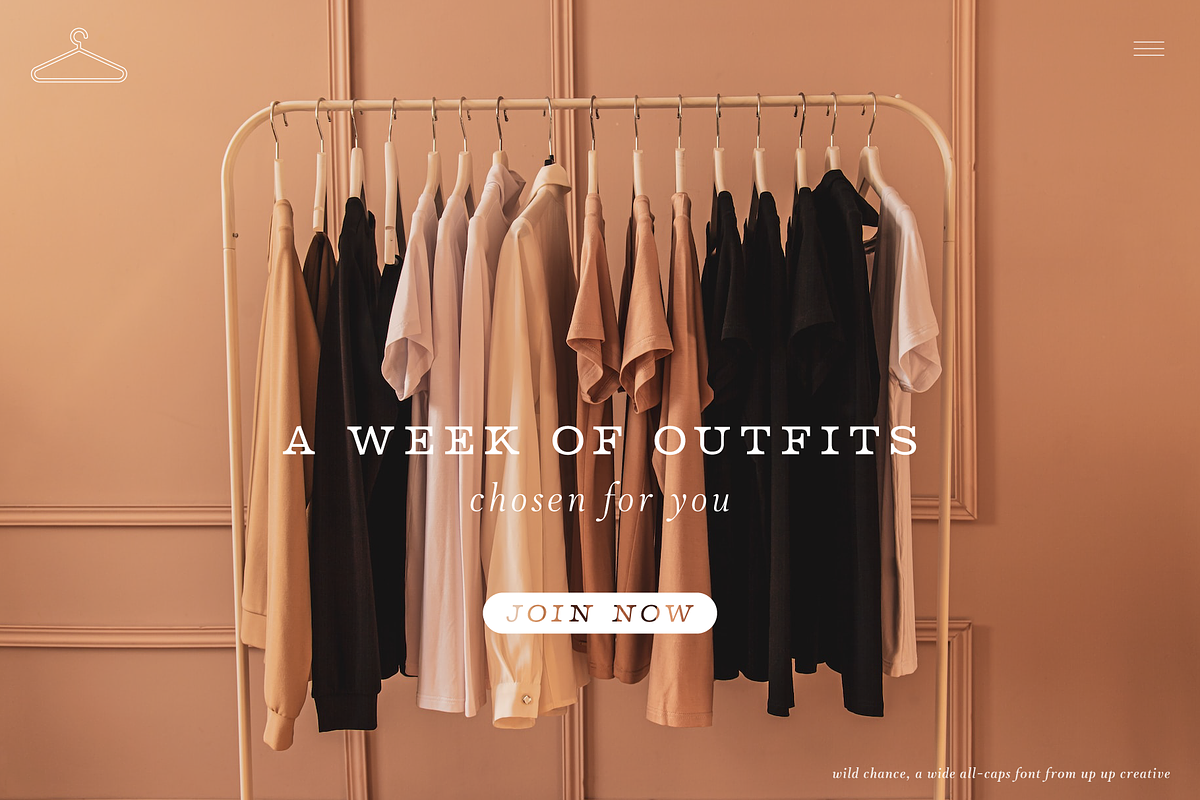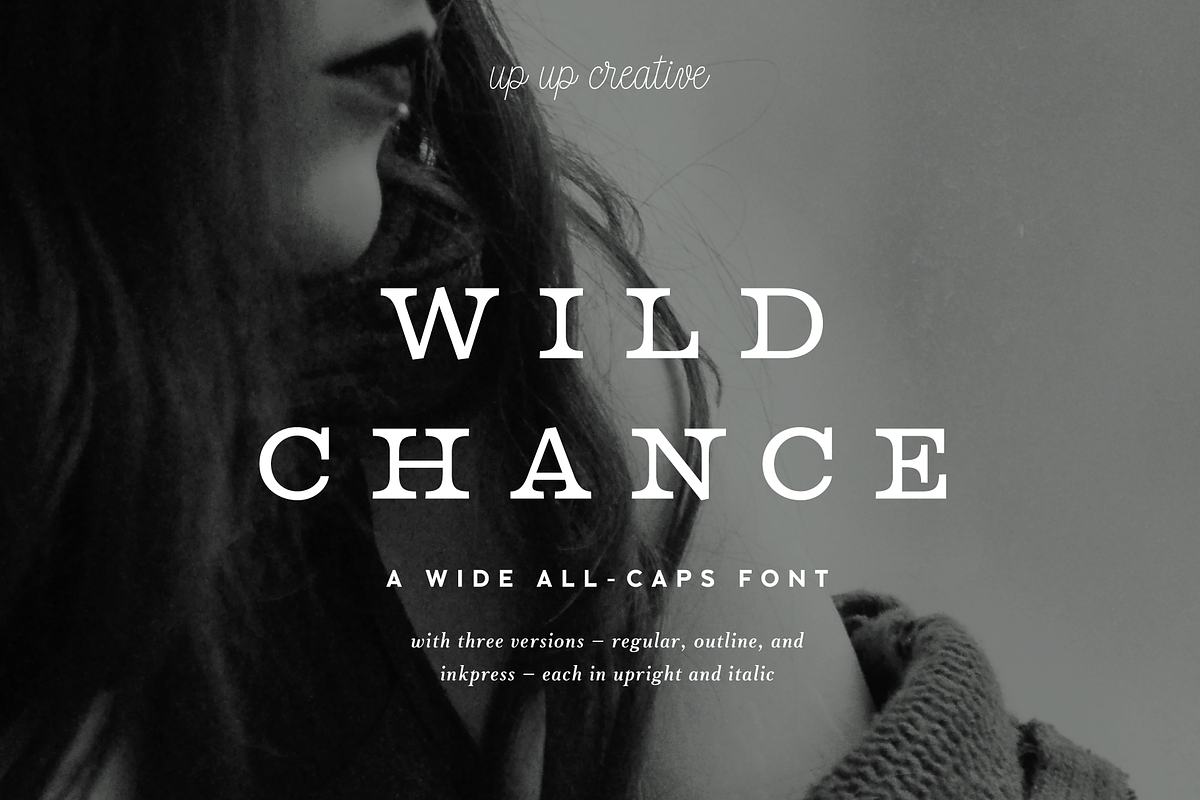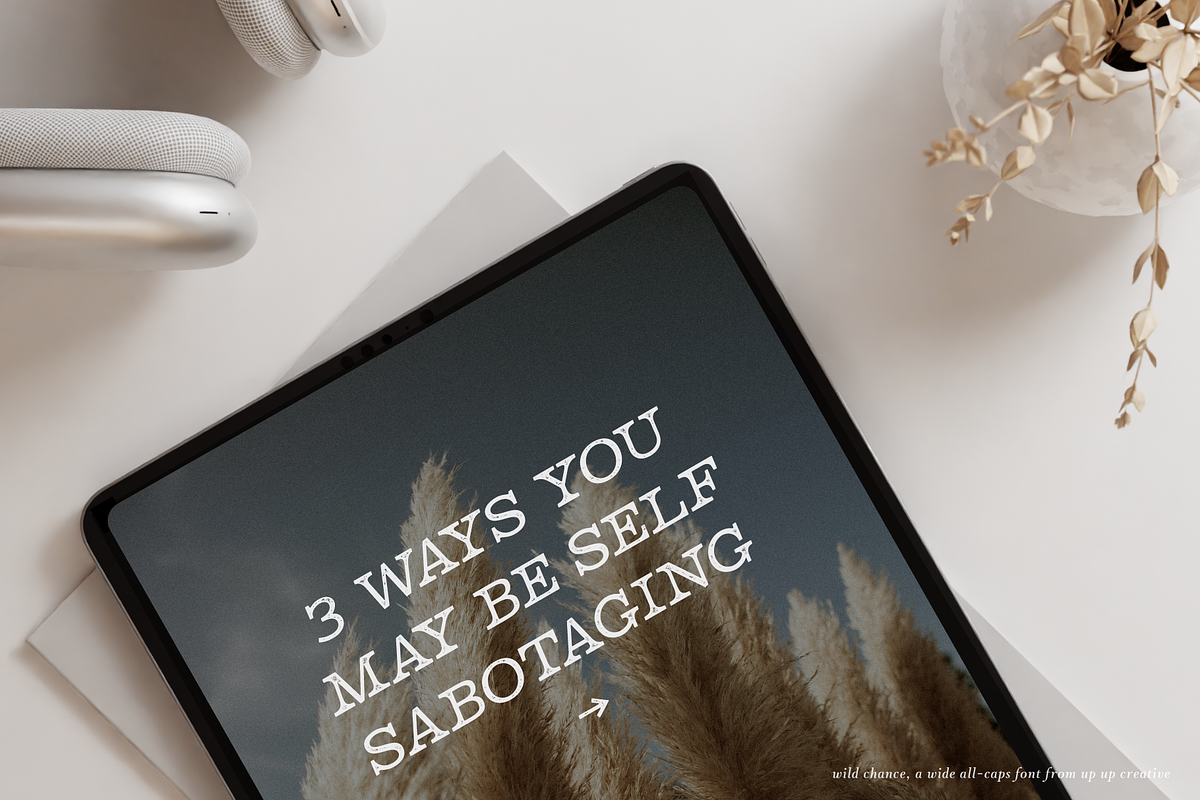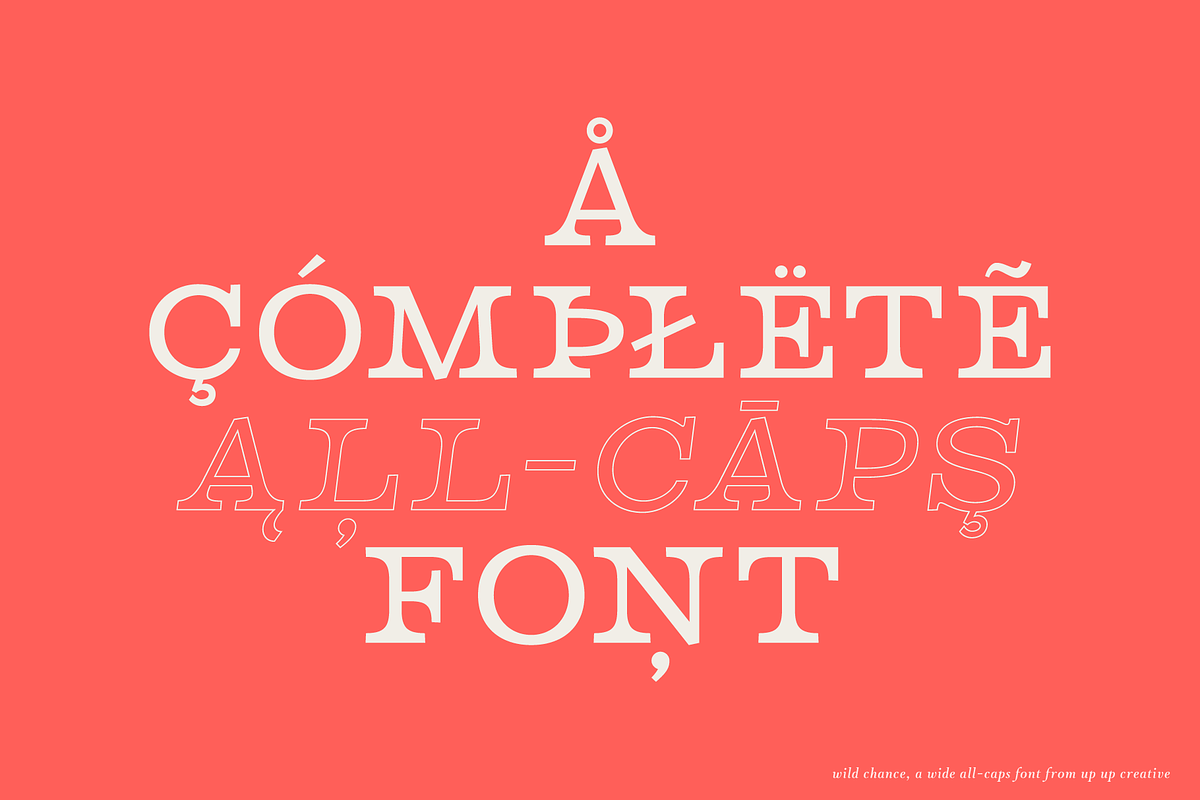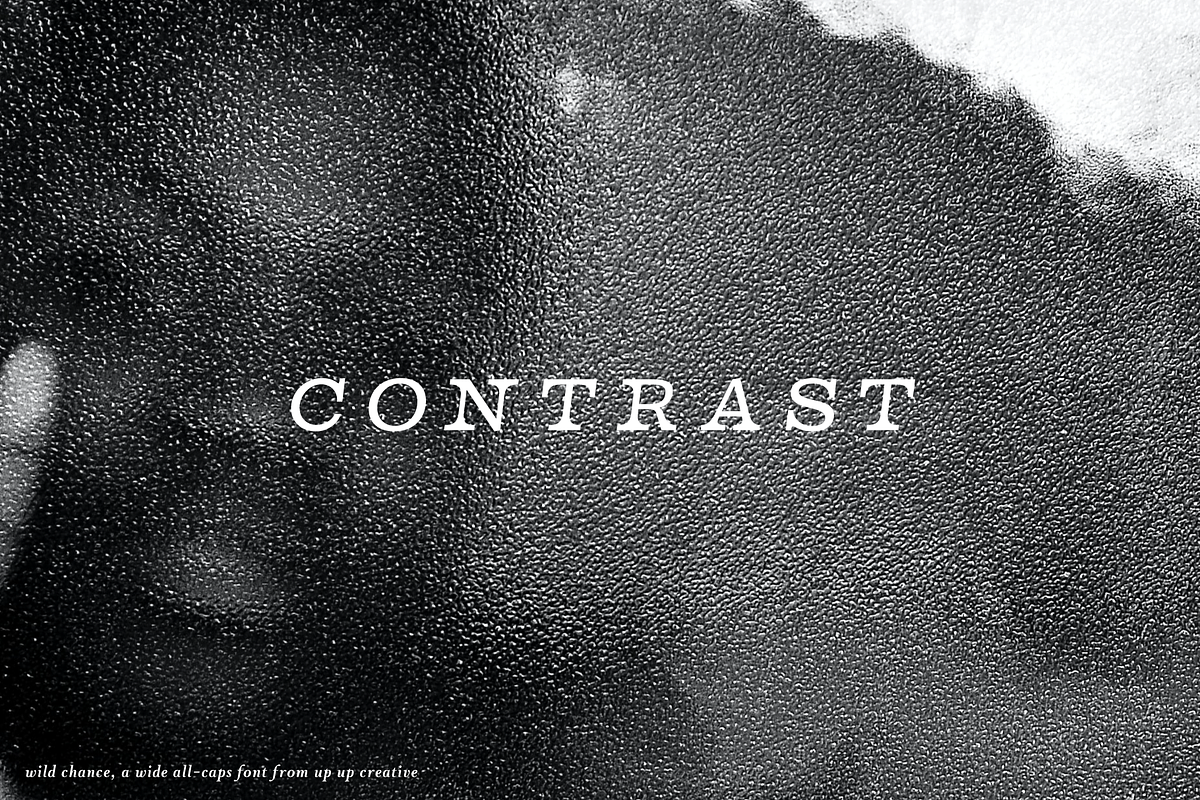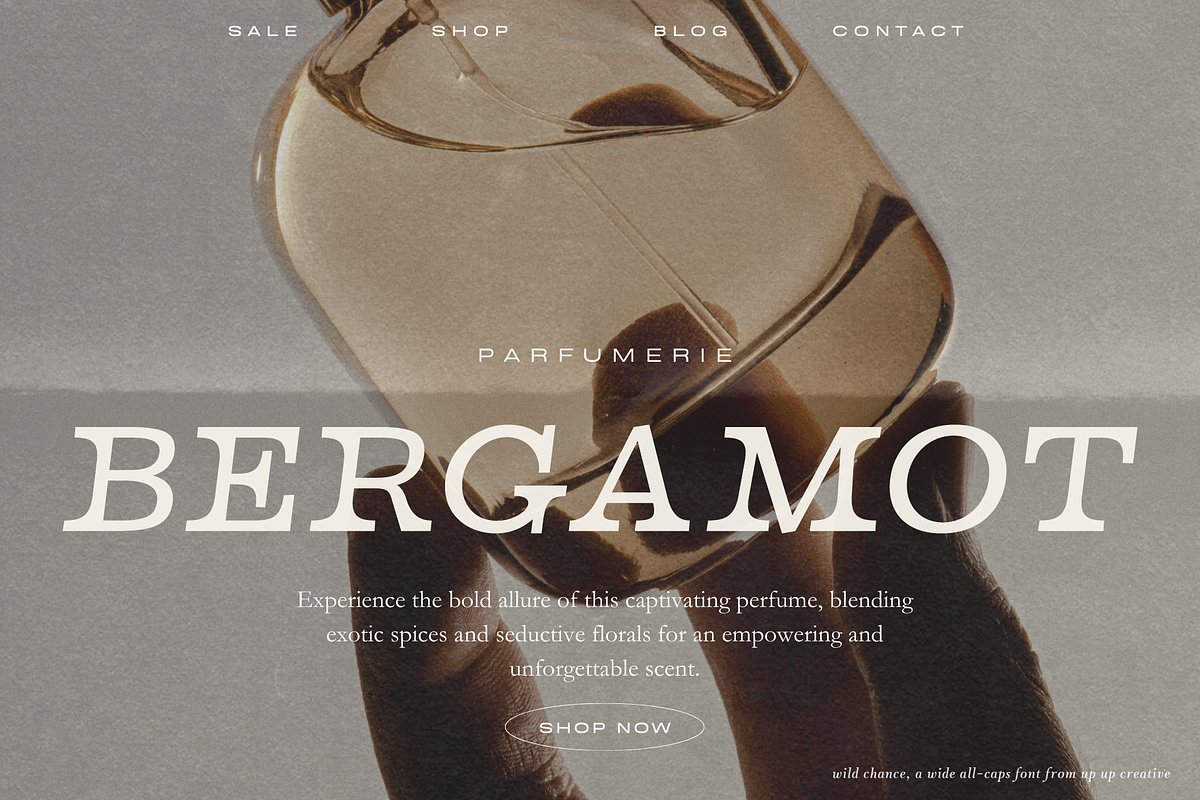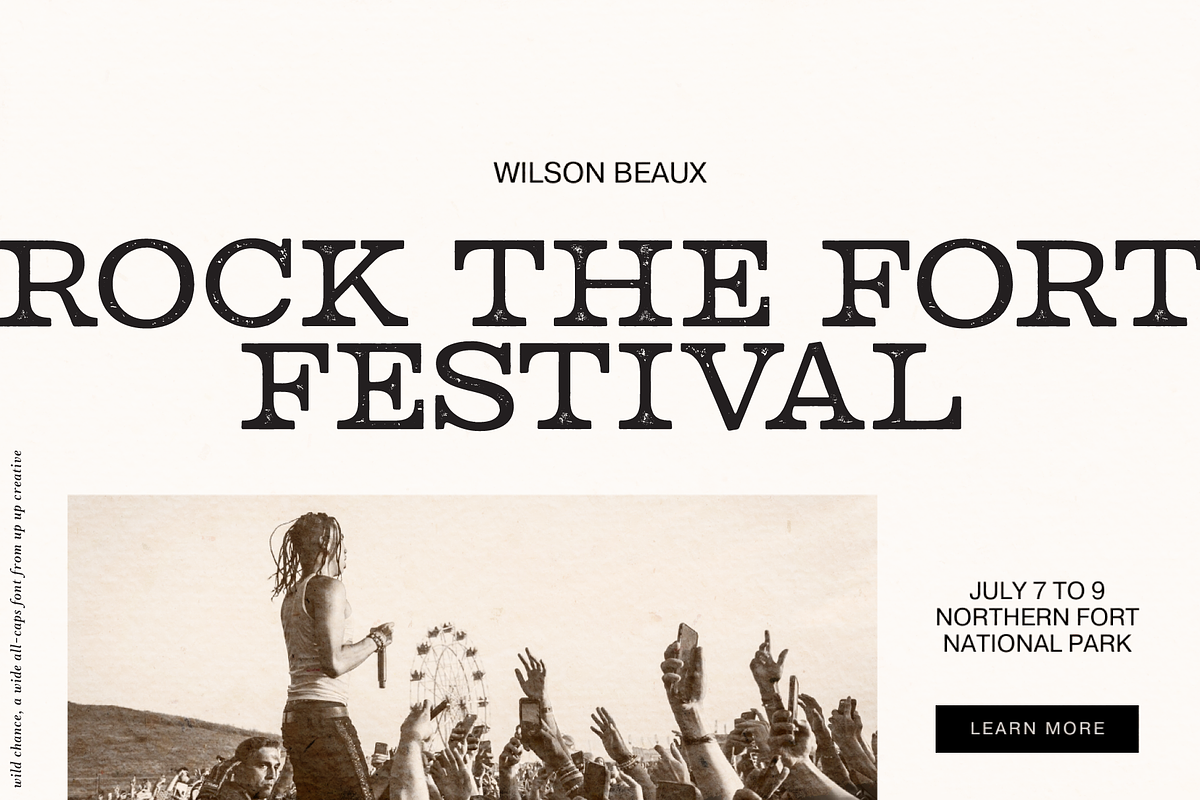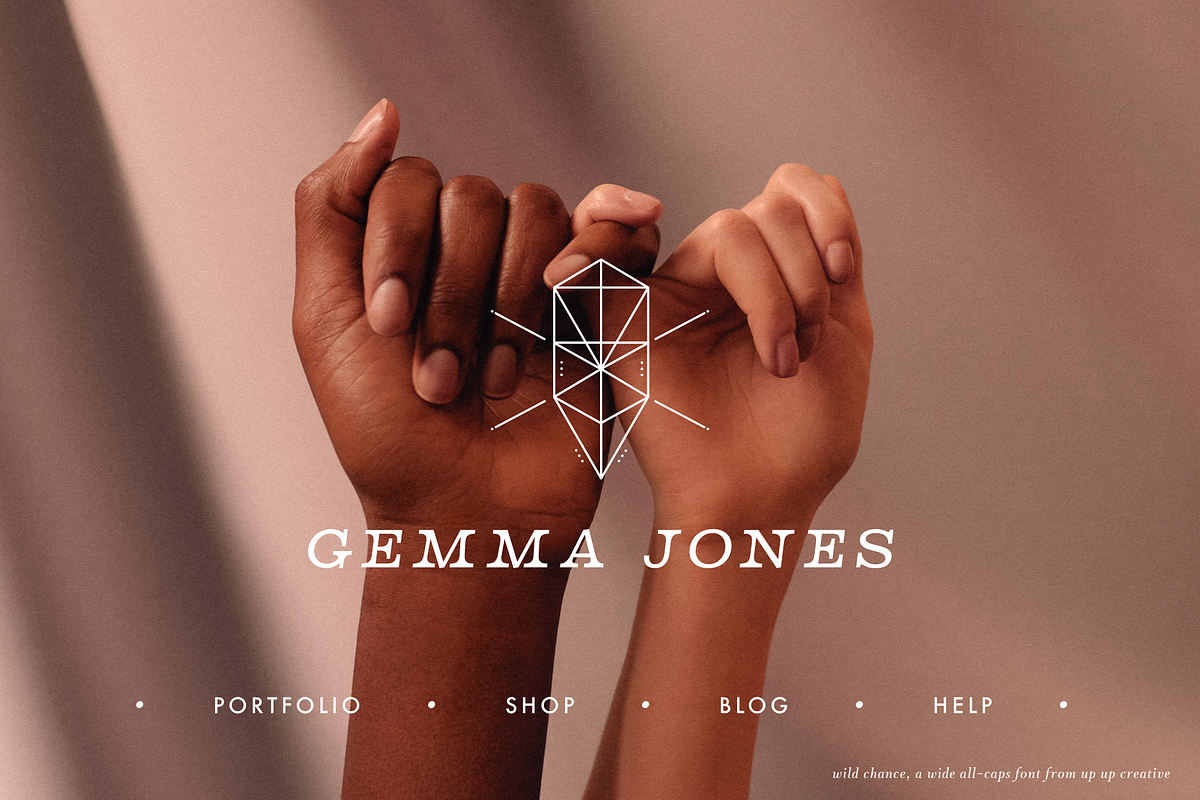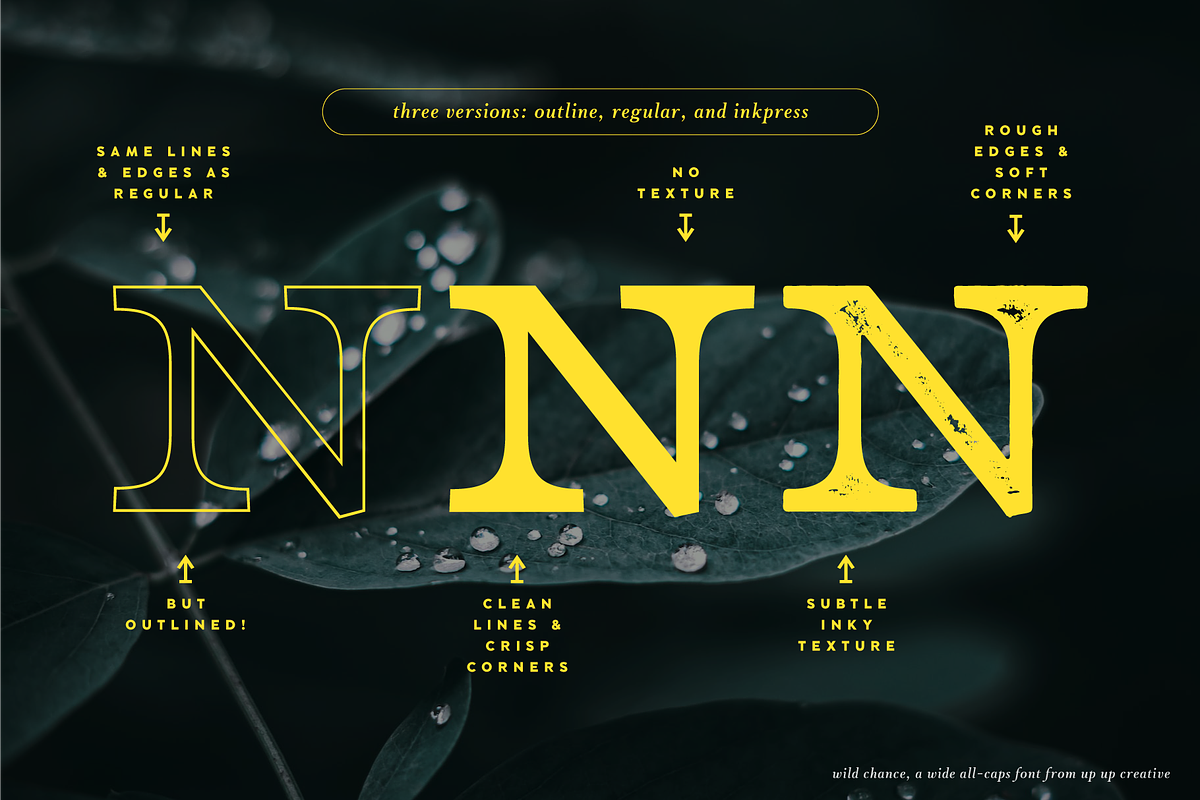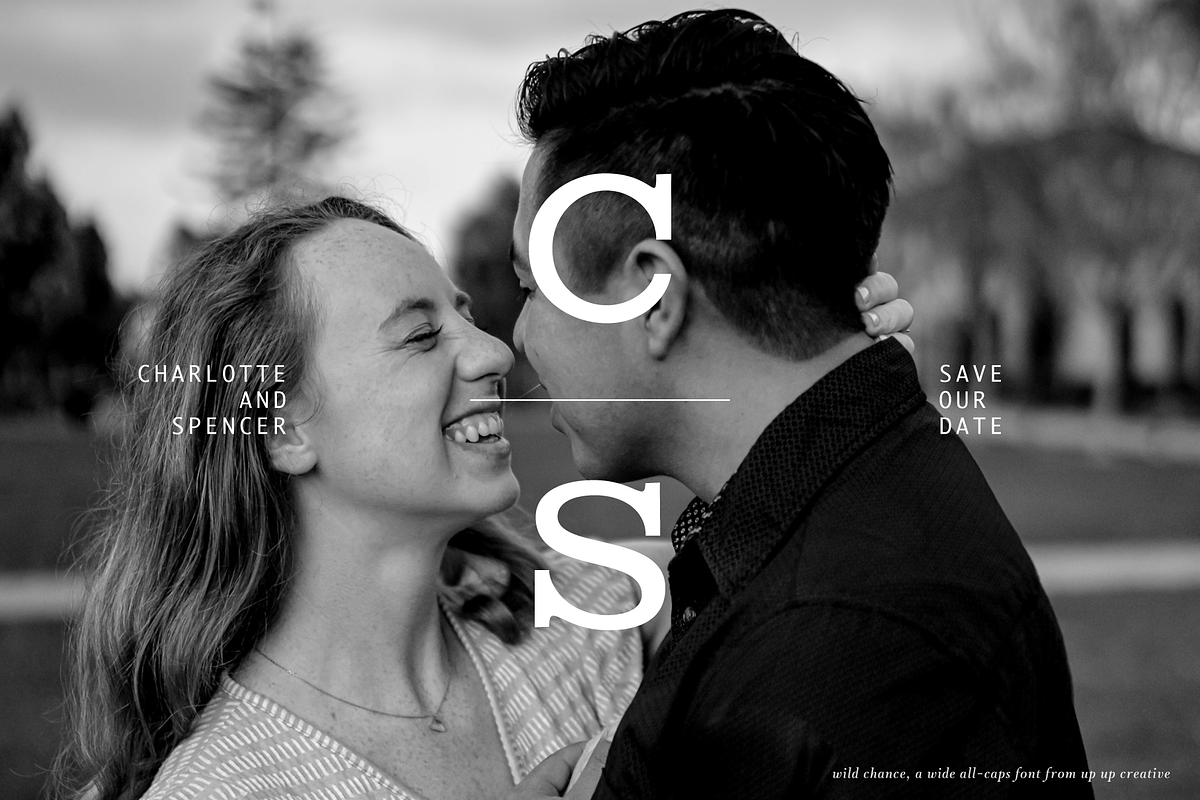
Wild Chance Complete 6-Font Family
Wild Chance, with its wide serifs and affable demeanor, is an expanded-width serif typeface designed to bring welcoming charm and a bit of broad-shouldered assertiveness to your design projects. Wild Chance is a versatile typeface available in three distinctive versions: regular, outline, and inkpress. Each version comes complete with both italic and upright variations, providing a total of six font files to suit a variety of design needs.
Wild Chance includes 388 glyphs and supports over 200 languages.